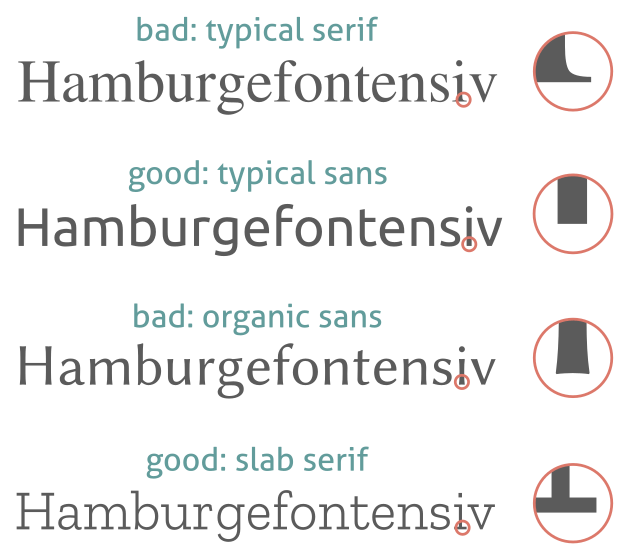
What Is The Best Font For Academic Papers . However, you should make sure to pick a font that's easy to read. Charlotte flatebo, an applied physics phd candidate from rice university says “you can’t. Another font that you may want to consider is arial. Your visual abstracts can be beautiful with mind the graph. If there's no template, then the choice is yours. Choosing the right font for the right kind of content is imperative, this article will aid your decision when it comes to scientific fonts. Additionally, bogdan's ui kits were featured on marketplaces like visual hierarchy and ui8. Explore the best fonts for academic papers:. For presentations and posters, she prefers calibri, which she says is easier to read at a distance. A good font to use for academic papers is times, new roman. The usual standards in academia tend to be the times, helvetica/arial, and. Whether you’re creating an academic paper for peer review or drafting a creative annual report, it’s important to select a font that matches.
The usual standards in academia tend to be the times, helvetica/arial, and. For presentations and posters, she prefers calibri, which she says is easier to read at a distance. A good font to use for academic papers is times, new roman. Your visual abstracts can be beautiful with mind the graph. Choosing the right font for the right kind of content is imperative, this article will aid your decision when it comes to scientific fonts. However, you should make sure to pick a font that's easy to read. Charlotte flatebo, an applied physics phd candidate from rice university says “you can’t. Explore the best fonts for academic papers:. Whether you’re creating an academic paper for peer review or drafting a creative annual report, it’s important to select a font that matches. Additionally, bogdan's ui kits were featured on marketplaces like visual hierarchy and ui8.
What Is The Best Font For Academic Papers Charlotte flatebo, an applied physics phd candidate from rice university says “you can’t. Additionally, bogdan's ui kits were featured on marketplaces like visual hierarchy and ui8. Your visual abstracts can be beautiful with mind the graph. Whether you’re creating an academic paper for peer review or drafting a creative annual report, it’s important to select a font that matches. For presentations and posters, she prefers calibri, which she says is easier to read at a distance. Charlotte flatebo, an applied physics phd candidate from rice university says “you can’t. However, you should make sure to pick a font that's easy to read. If there's no template, then the choice is yours. A good font to use for academic papers is times, new roman. The usual standards in academia tend to be the times, helvetica/arial, and. Another font that you may want to consider is arial. Choosing the right font for the right kind of content is imperative, this article will aid your decision when it comes to scientific fonts. Explore the best fonts for academic papers:.
formatting What kind of fonts can I use for academic presentation What Is The Best Font For Academic Papers The usual standards in academia tend to be the times, helvetica/arial, and. Additionally, bogdan's ui kits were featured on marketplaces like visual hierarchy and ui8. For presentations and posters, she prefers calibri, which she says is easier to read at a distance. Another font that you may want to consider is arial. However, you should make sure to pick a. What Is The Best Font For Academic Papers.
Academic CV Template—Examples, and 25+ Writing Tips What Is The Best Font For Academic Papers If there's no template, then the choice is yours. Charlotte flatebo, an applied physics phd candidate from rice university says “you can’t. However, you should make sure to pick a font that's easy to read. Another font that you may want to consider is arial. Your visual abstracts can be beautiful with mind the graph. A good font to use. What Is The Best Font For Academic Papers.
Best fonts for academic papers/writing Fonts by topic/style What Is The Best Font For Academic Papers A good font to use for academic papers is times, new roman. Whether you’re creating an academic paper for peer review or drafting a creative annual report, it’s important to select a font that matches. The usual standards in academia tend to be the times, helvetica/arial, and. Your visual abstracts can be beautiful with mind the graph. If there's no. What Is The Best Font For Academic Papers.
scientific posters font size blackandwhitefacefineartphotography What Is The Best Font For Academic Papers Choosing the right font for the right kind of content is imperative, this article will aid your decision when it comes to scientific fonts. Charlotte flatebo, an applied physics phd candidate from rice university says “you can’t. However, you should make sure to pick a font that's easy to read. For presentations and posters, she prefers calibri, which she says. What Is The Best Font For Academic Papers.
Best font for academic cover letter Resume and Cover Letter Resources What Is The Best Font For Academic Papers Additionally, bogdan's ui kits were featured on marketplaces like visual hierarchy and ui8. Your visual abstracts can be beautiful with mind the graph. However, you should make sure to pick a font that's easy to read. Charlotte flatebo, an applied physics phd candidate from rice university says “you can’t. Explore the best fonts for academic papers:. Choosing the right font. What Is The Best Font For Academic Papers.
The best fonts for your resume ranked Job resume, Cover letter for What Is The Best Font For Academic Papers However, you should make sure to pick a font that's easy to read. A good font to use for academic papers is times, new roman. Charlotte flatebo, an applied physics phd candidate from rice university says “you can’t. Additionally, bogdan's ui kits were featured on marketplaces like visual hierarchy and ui8. Another font that you may want to consider is. What Is The Best Font For Academic Papers.
Which Font Looks Best in a Figure? Chemistry of Materials What Is The Best Font For Academic Papers Additionally, bogdan's ui kits were featured on marketplaces like visual hierarchy and ui8. Your visual abstracts can be beautiful with mind the graph. Charlotte flatebo, an applied physics phd candidate from rice university says “you can’t. For presentations and posters, she prefers calibri, which she says is easier to read at a distance. If there's no template, then the choice. What Is The Best Font For Academic Papers.
Font For Academic Papers What Is The Best Font For Academic Papers Choosing the right font for the right kind of content is imperative, this article will aid your decision when it comes to scientific fonts. However, you should make sure to pick a font that's easy to read. If there's no template, then the choice is yours. Another font that you may want to consider is arial. Explore the best fonts. What Is The Best Font For Academic Papers.